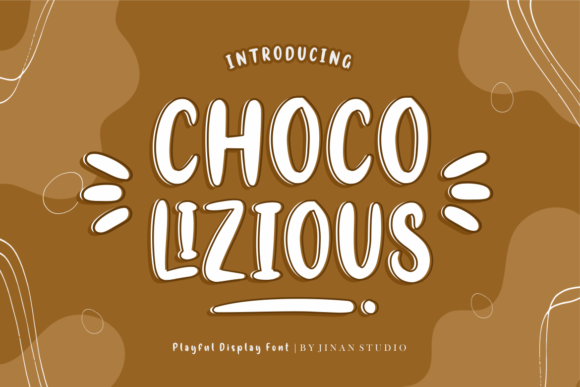
Introducing Chocolizious Font: Add a Touch of Romance to Your Creations
Are you a designer or crafter looking for a font that can add a romantic touch to your projects? Look no further than Chocolizious Font! This playful and delicate display font is perfect for a wide range of applications, from greeting cards to headlines, and is sure to make your creations stand out.
What is Chocolizious Font?
Chocolizious Font is a unique and charming display font that is designed to add a touch of romance and whimsy to your projects. Its delicate and playful design makes it perfect for use in a variety of creative applications, including greeting cards, invitations, headlines, and more.
Key Features of Chocolizious Font
- Playful and delicate design: Chocolizious Font features a unique and charming design that is both playful and delicate, making it perfect for adding a romantic touch to your projects.
- Display font: This font is specifically designed as a display font, making it perfect for use in headlines, titles, and other prominent text elements.
- Wide range of applications: Chocolizious Font is suitable for use in a wide range of applications, including greeting cards, invitations, headlines, and more.
- Romantic touch: This font is designed to add a romantic touch to your projects, making it perfect for use in Valentine’s Day cards, wedding invitations, and other romantic-themed projects.
Uses for Chocolizious Font
Chocolizious Font is a versatile font that can be used in a wide range of creative applications, including:
- Greeting cards: Add a romantic touch to your greeting cards with Chocolizious Font, perfect for Valentine’s Day, Mother’s Day, and other special occasions.
- Invitations: Use Chocolizious Font to create beautiful and elegant invitations for weddings, baby showers, and other special events.
- Headlines: Add a touch of whimsy and romance to your headlines with Chocolizious Font, perfect for use in magazines, blogs, and other publications.
- Signs and posters: Use Chocolizious Font to create eye-catching signs and posters for special events, sales, and promotions.
Tips for Using Chocolizious Font
Here are a few tips for using Chocolizious Font in your projects:
- Pair with a simple font: Pair Chocolizious Font with a simple font, such as Arial or Helvetica, to create a beautiful and elegant contrast.
- Use in moderation: While Chocolizious Font is a beautiful font, it can be overwhelming if used too much. Use it in moderation to create a beautiful and eye-catching design.
- Experiment with colors: Chocolizious Font looks beautiful in a variety of colors, so don’t be afraid to experiment and find the perfect color for your project.
Chocolizious Font is a beautiful and charming display font that is perfect for adding a romantic touch to your projects. With its playful and delicate design, this font is suitable for use in a wide range of creative applications, from greeting cards to headlines. Whether you’re a designer or crafter, Chocolizious Font is a great addition to your font collection.